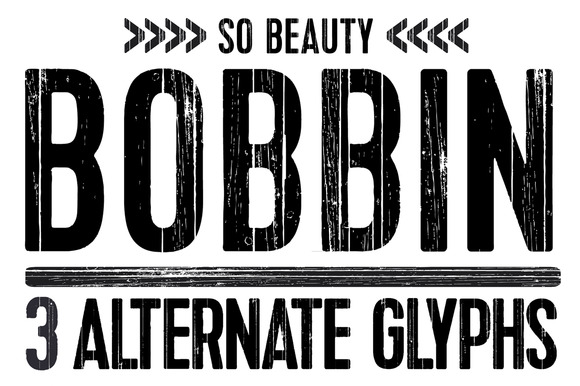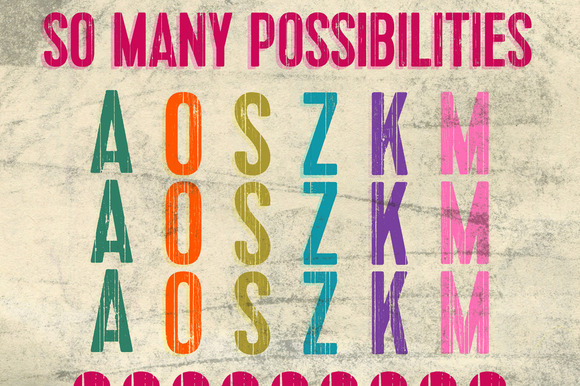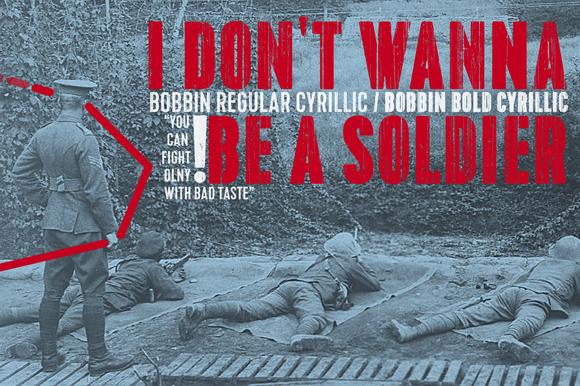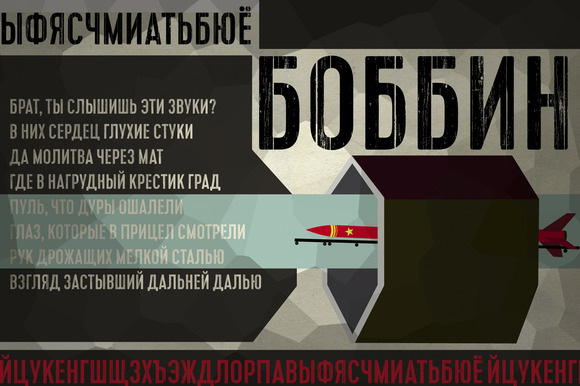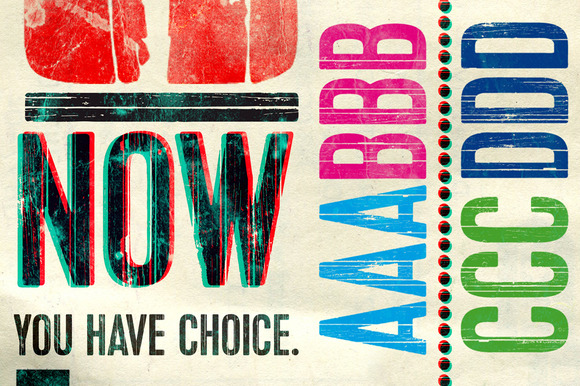
Discover the Charm of Bobbin Font: A Unique Typeface Inspired by Polish History
Are you a designer or crafter looking for a font that stands out from the crowd? Look no further than the Bobbin Font, a distinctive typeface with a rich history. Inspired by the Polish publication “You and Me Monthly” by National Magazines Publisher RSW Prasa, which was published from May 1960 to December 1973, this font is a true gem for those who appreciate nostalgia and uniqueness.
The Story Behind Bobbin Font
The Bobbin Font is a result of meticulous research and design work, aimed at reviving the spirit of a bygone era. The original publication, “You and Me Monthly,” was a popular magazine in Poland that featured a wide range of topics, from culture and entertainment to lifestyle and advice. The magazine’s typography, characterized by its playful and charming style, has been carefully studied and reimagined into the Bobbin Font.
What Makes Bobbin Font Special?
One of the standout features of the Bobbin Font is its unique design, which is deeply rooted in its Polish heritage. The font family includes a range of styles, each with its own distinct character. What’s more, every variety in the Bobbin Cyrillic family contains 3 alternative characters, which can be automatically replaced. This feature allows designers and crafters to add an extra layer of creativity and personality to their work.
The Bobbin Cyrillic Family: A Range of Styles
The Bobbin Cyrillic family is a comprehensive collection of fonts, designed to cater to various design needs. With multiple styles to choose from, designers and crafters can select the one that best suits their project. Whether you’re working on a branding project, a craft project, or a digital design, the Bobbin Cyrillic family has got you covered.
Why Choose Bobbin Font?
So, why should you choose the Bobbin Font for your next project? Here are just a few reasons:
- Unique and distinctive: The Bobbin Font is unlike any other font out there. Its unique design and Polish heritage make it a standout choice for designers and crafters looking to add a touch of personality to their work.
- Highly versatile: With multiple styles to choose from, the Bobbin Cyrillic family is suitable for a wide range of design projects, from branding and advertising to crafting and digital design.
Tips for Using Bobbin Font
Here are some tips for getting the most out of the Bobbin Font:
- Experiment with different styles: With multiple styles to choose from, don’t be afraid to experiment and find the one that works best for your project.
- Mix and match: Combine the Bobbin Font with other fonts to create a unique and eye-catching design.
The Bobbin Font is a true gem for designers and crafters looking to add a touch of personality and uniqueness to their work. With its rich history, unique design, and highly versatile styles, this font is sure to inspire creativity and bring a touch of nostalgia to any project. Whether you’re working on a branding project, a craft project, or a digital design, the Bobbin Font is definitely worth considering.